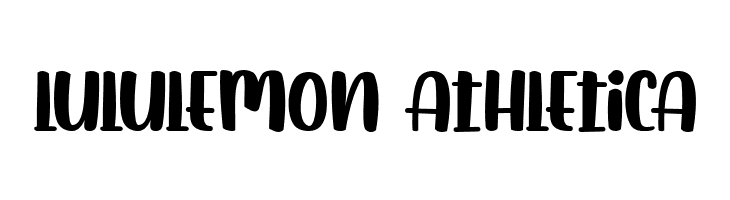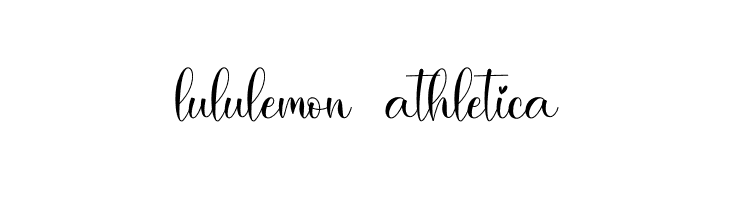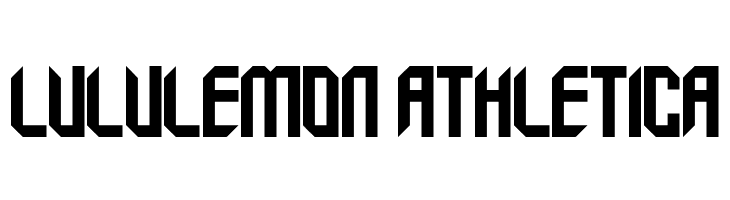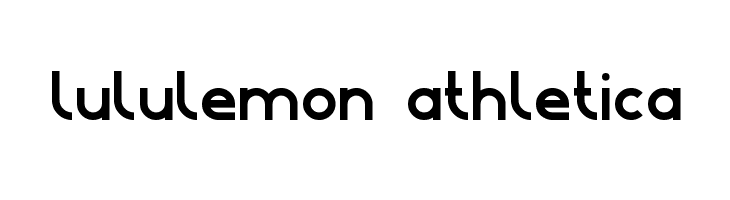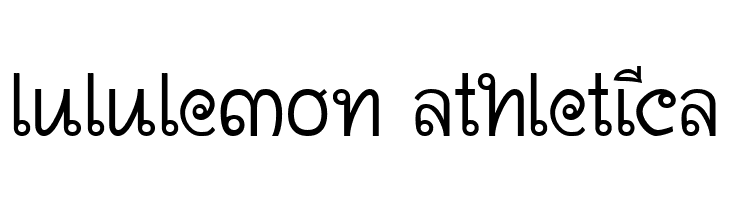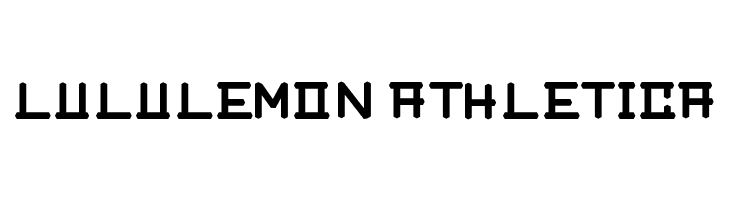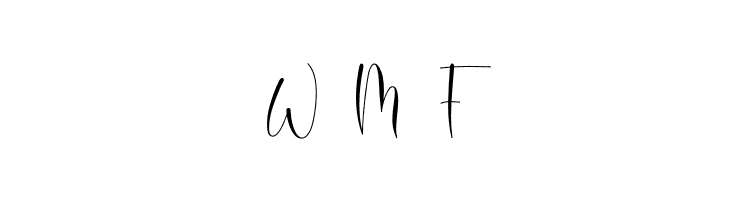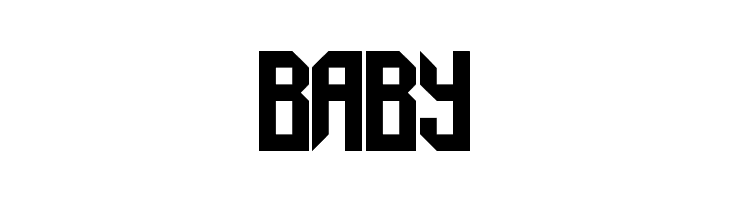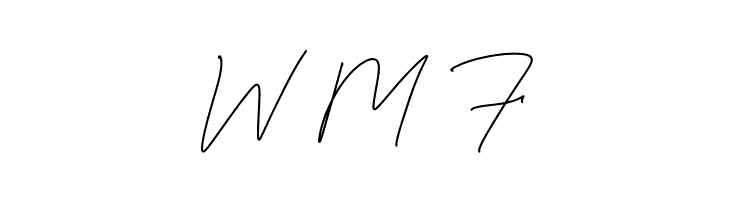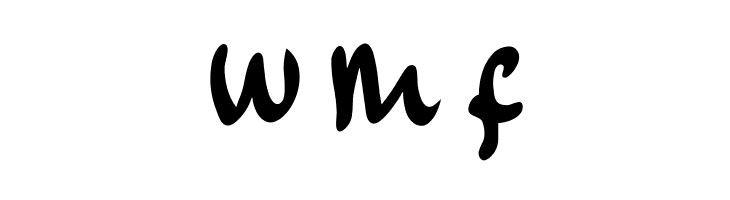
A bold, modern font with geometric shapes and clean lines.
A bold, handwritten font with a playful and dynamic style.
A modern, geometric sans-serif font with a clean and balanced design.
A playful, bold font with rounded edges and a hand-drawn feel.
A playful and elegant cursive font with flowing, slender characters.
A casual, handwritten script font with a flowing, cursive style.
A bold, geometric font with sharp angles and a blocky structure.